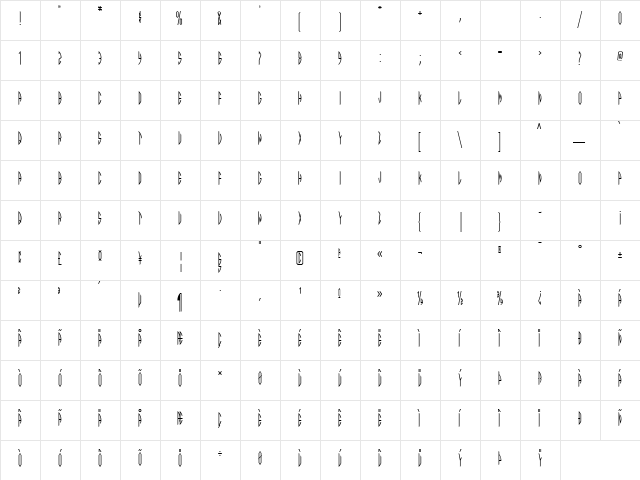
ArkSGR MonogramRight
Design Context for ArkSGR Typeface
ArkSGR brings the precise, column-aligned rhythm of monospaced typography to designs that value technical clarity and systematic order.